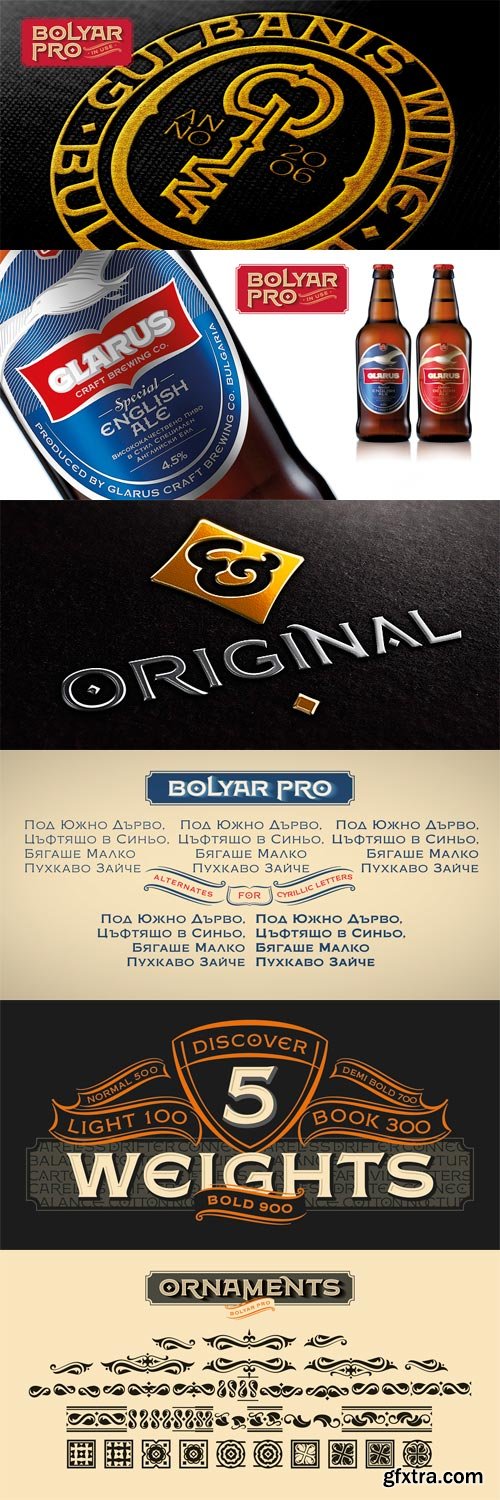
FM Bolyar Pro Font Family
Bolyar Pro type family is the ancestor of our successful font Bolyar. We decided to develop it to a new higher level - making it more sophisticated, detailed and useful at the same time. The new improved Bolyar is able to satisfy every typographic taste and meet the ever growing design requirements for high quality typefaces. If you are addicted to classic vintage style, then you could easily use Bolyar Pro for almost anything - from letterhead, logos and catchy headlines to elegant packaging, book covers and wine labels. Alternates, Swashes and Ligatures will help you customize almost every single letter and fit perfectly to your artwork.